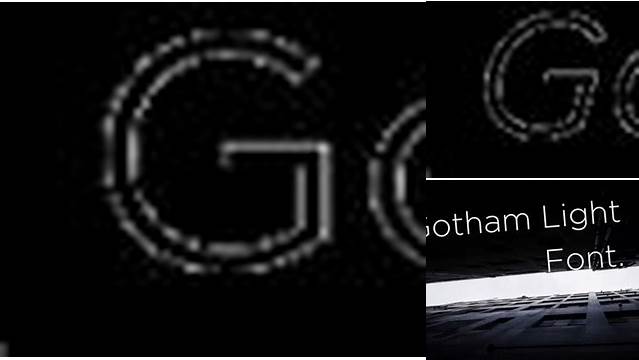
Unveiling the Gotham SSM Light Font: A Design Essential
Hey design enthusiasts! Let's dive into the world of typography and talk about a font that’s been making waves – the Gotham SSM Light font. If you’re looking to add a touch of modern sophistication and clean aesthetics to your projects, you’ve come to the right place. This font, known for its geometric sans-serif charm, offers a versatile and elegant solution for a wide range of design needs. Whether you’re working on branding, web design, print materials, or even social media graphics, Gotham SSM Light brings a professional and polished feel. We're going to explore why this font is so popular and, more importantly, how you can get your hands on it for free. It’s all about making your designs stand out without breaking the bank, right? So, buckle up as we uncover the secrets behind this fantastic typeface and guide you through the process of downloading and utilizing it effectively in your creative endeavors. Get ready to elevate your design game with Gotham SSM Light!
Exploring the Versatility of Gotham SSM Light Font
The Gotham SSM Light font truly shines when it comes to its sheer versatility, guys. This isn't just another pretty typeface; it's a workhorse that can adapt to numerous design contexts with effortless grace. Its clean lines and balanced proportions make it incredibly readable, a crucial factor for everything from website body text to impactful headlines. For branding projects, Gotham SSM Light offers a sense of modern reliability and approachability. Think about corporate logos, business cards, or marketing collateral – this font conveys professionalism without feeling stuffy. Web designers will love how it renders on screen, maintaining clarity across different resolutions and devices. Its lightweight nature means it won't bog down your website's loading times either, which is a huge plus for user experience and SEO. Print designers can utilize its crispness for brochures, posters, and annual reports, ensuring that every word pops with clarity and style. Even in smaller applications like app interfaces or social media captions, Gotham SSM Light performs admirably, providing a consistent and pleasing visual rhythm. The subtle nuances in its letterforms give it a distinct personality, making it more engaging than a generic sans-serif. It’s this adaptability that makes Gotham SSM Light a go-to choice for designers who need a reliable font that can handle almost any brief thrown its way. Seriously, it's a game-changer!
Why Gotham SSM Light Font is a Designer's Favorite
So, what makes the Gotham SSM Light font such a hit among designers? Well, it boils down to a few key factors that just work. Firstly, its geometric foundation gives it a clean, modern, and almost architectural feel. This means it's perfect for projects that need to convey a sense of order, precision, and sophistication. Think sleek tech startups, minimalist branding, or high-end editorial design. Secondly, the 'Light' weight is particularly appealing. It offers a delicate yet strong presence, making it ideal for subheadings, captions, or longer blocks of text where you want readability without overwhelming the design. It has this subtle elegance that’s hard to replicate with other fonts. It strikes that perfect balance between being noticeable and being unobtrusive. Plus, Gotham fonts, in general, have a strong reputation for their clarity and readability across various sizes and mediums. This particular iteration, Gotham SSM Light, carries that legacy forward, ensuring your message is communicated effectively and aesthetically. It’s also incredibly versatile, as we’ve touched upon. Whether you’re designing a website, a logo, a poster, or a book cover, this font has the flexibility to adapt. Its well-spaced letters and open counters contribute to its excellent legibility, even at smaller point sizes. This attention to detail in its construction is what elevates it from just a font to a genuine design tool. Designers love tools that make their job easier and their output look better, and Gotham SSM Light definitely fits that bill. It’s a reliable choice that consistently delivers high-quality results, which is why it's a staple in so many design toolkits.
The Aesthetics and Characteristics of Gotham SSM Light
Let's get a bit more granular about the actual look and feel of the Gotham SSM Light font, shall we? What makes it so special aesthetically? At its core, Gotham SSM Light is a geometric sans-serif typeface. This means its design is heavily influenced by geometric shapes, particularly circles and straight lines. You can see this in the perfectly round 'o's, the crisp 'i' dots, and the clean, unadorned stems of letters like 'l' and 't'. This geometric structure lends the font a sense of order, clarity, and modernity. The 'Light' weight, specifically, adds a layer of refinement. It’s not so thin that it becomes illegible, but it has an airy quality that feels sophisticated and clean. This lightness makes it excel in situations where you want text to feel airy and open, like in captions, subheadings, or even as a secondary text element in branding. The letterforms themselves are well-proportioned, with open counters (the enclosed or partially enclosed negative space in letters like 'a', 'e', 'o') that enhance readability, especially at smaller sizes. The terminals of letters like 'c' and 's' are often cut horizontally, contributing to its clean, modern appearance. There’s a subtle warmth to it, too, preventing it from feeling too cold or sterile, which can sometimes be a pitfall of purely geometric fonts. This balance is key to its widespread appeal. It’s a font that feels both contemporary and timeless, approachable yet professional. The attention to detail in its construction means that even simple phrases typed in Gotham SSM Light look intentional and well-crafted. It’s this blend of geometric precision and functional elegance that defines its unique aesthetic and makes it a favorite for so many design applications.